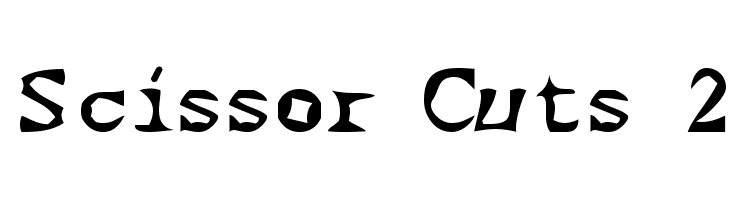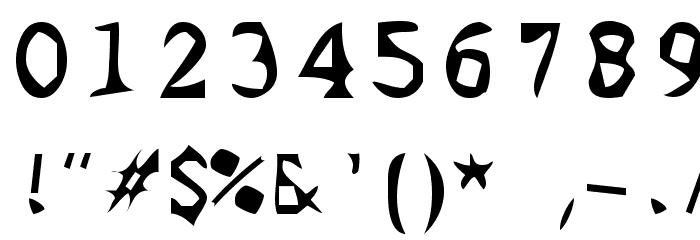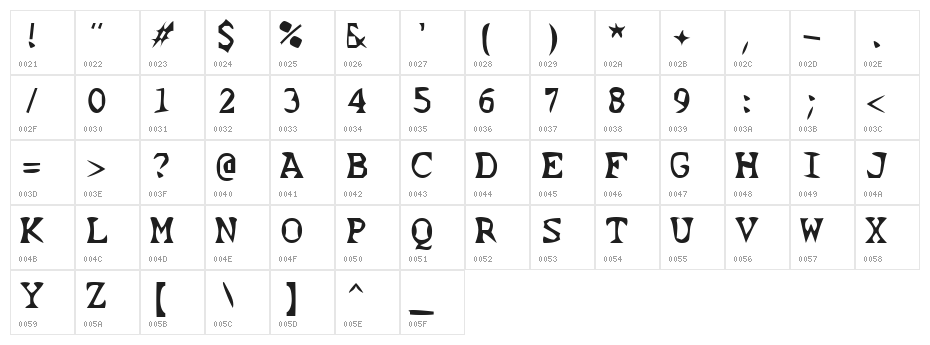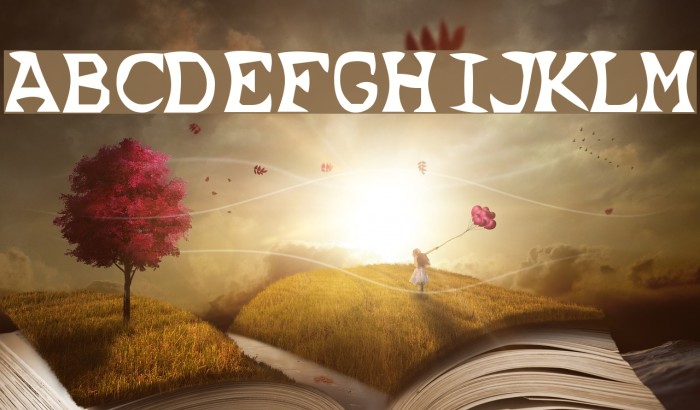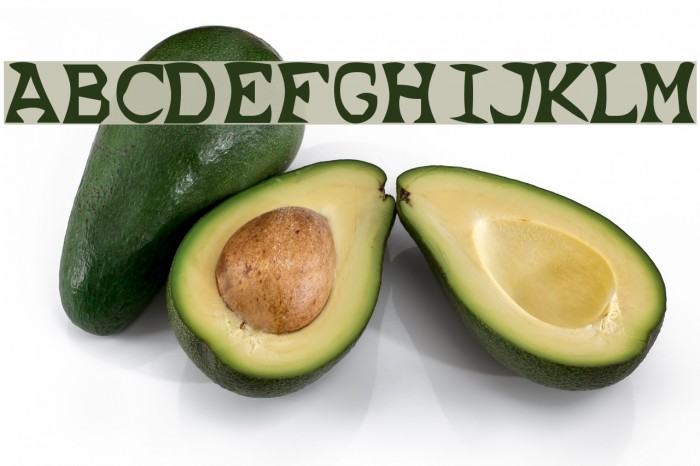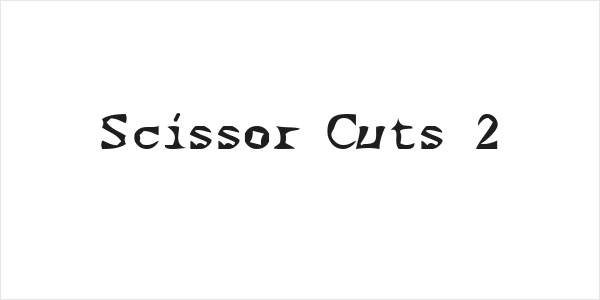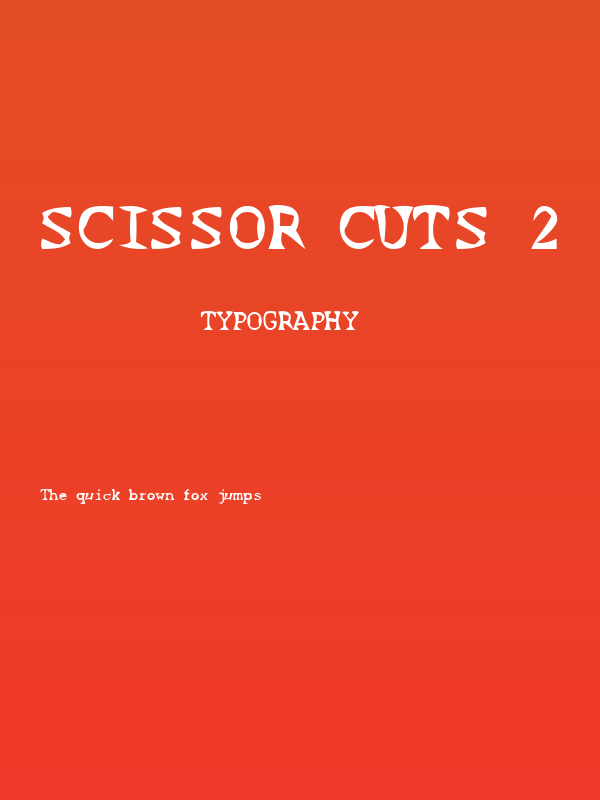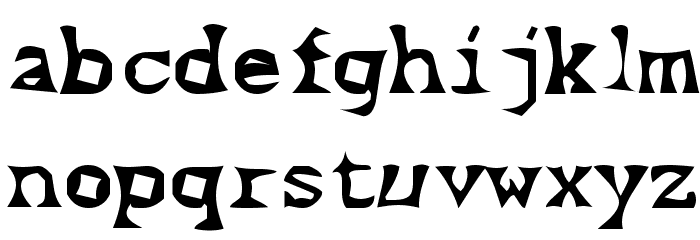
Scissor Cuts 2 Font
Scissor Cuts 2 Description
This font features a bold and dynamic style with sharp, angular cuts that give it a distinctive, edgy appearance. The uppercase and lowercase letters maintain a consistent design, characterized by irregular edges and a playful, handcrafted feel. The numbers and special characters follow the same aesthetic, ensuring a cohesive look across all glyphs. The font's unique style is reminiscent of paper cutouts or stencil art, making it stand out in any design project. Its bold presence and artistic flair make it suitable for creative and unconventional uses.